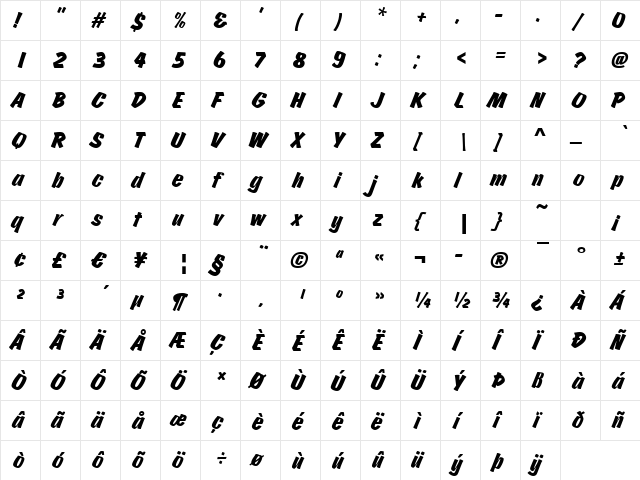
Josephs-Brush Italic
Design Context for Josephs-Brush Typeface
Josephs-Brush flows with the natural rhythm of handwritten lettering, making it ideal for designs that call for warmth and personal expression.
Font Pairing: Combine Josephs-Brush with a simple geometric sans for maximum contrast — the tension between flowing curves and clean structure is a classic typographic pairing.
Pro Tip: Use Josephs-Brush for short runs of text — names, titles, or taglines. Extended body copy in script faces tires the eye quickly.